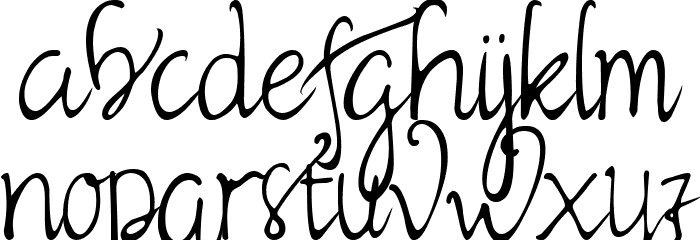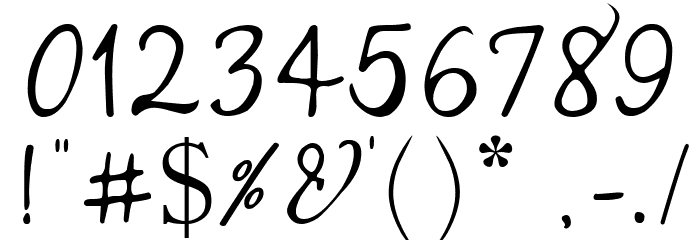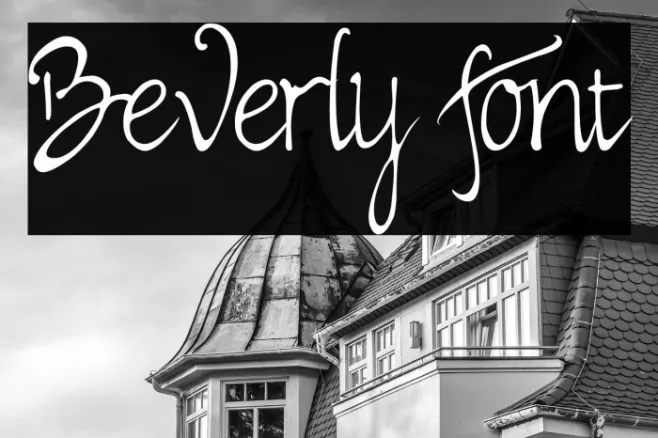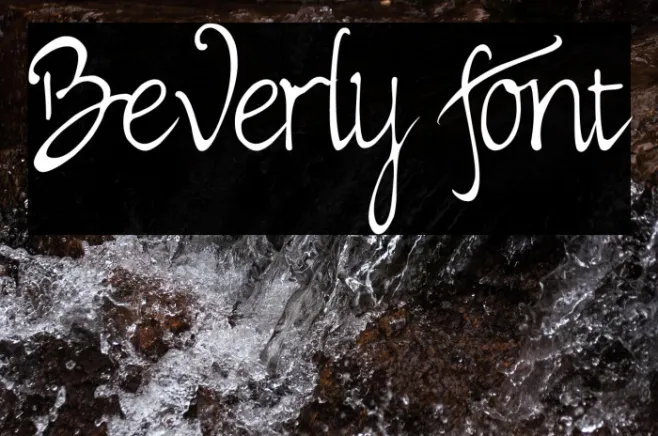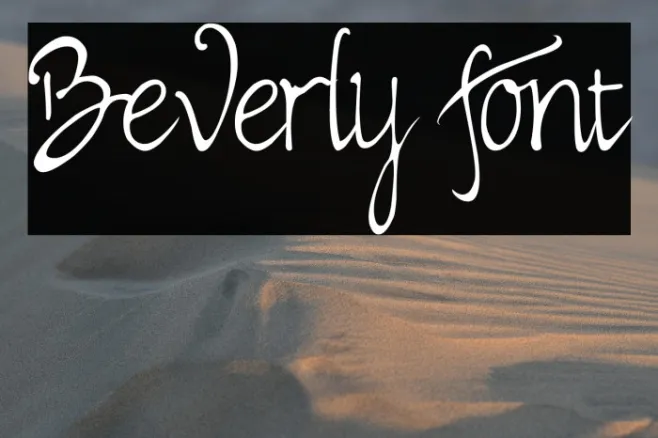
Beverly font Font
This font features a whimsical and artistic script style, characterized by its flowing, interconnected letters and playful curves. The uppercase letters exhibit a unique flair with varying stroke widths, while the lowercase letters maintain a consistent, elegant flow. The numerals are distinct and easily readable, complementing the overall artistic nature of the font. Special characters are creatively designed, adding to the font's decorative appeal. This font's hand-drawn appearance gives it a personal and expressive touch, making it ideal for creative projects.
A whimsical, artistic script font with flowing, interconnected letters and playful curves.
- Proposed Projects: Ideal for wedding invitations, greeting cards, artistic branding, and creative posters.
- Use Case: Logos, Invitations, Artistic projects